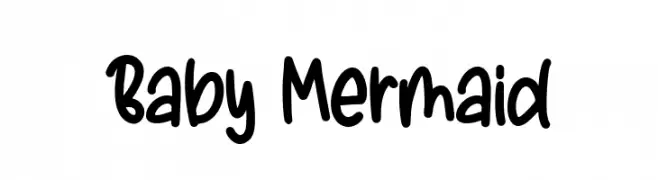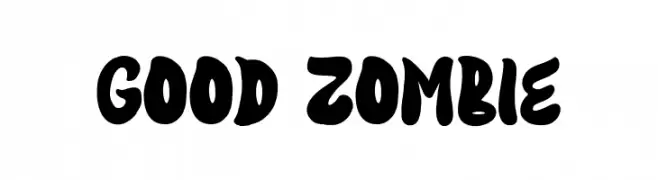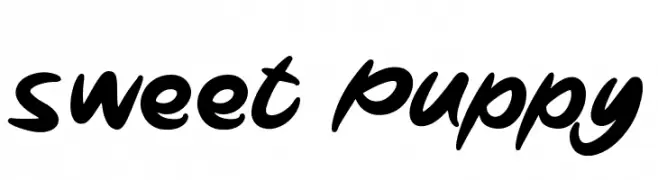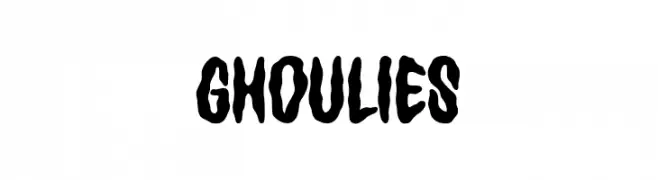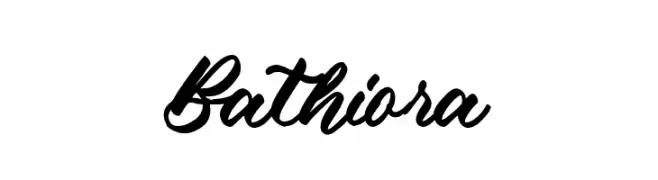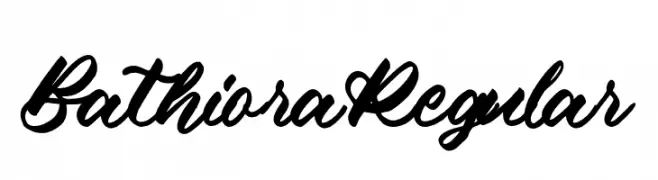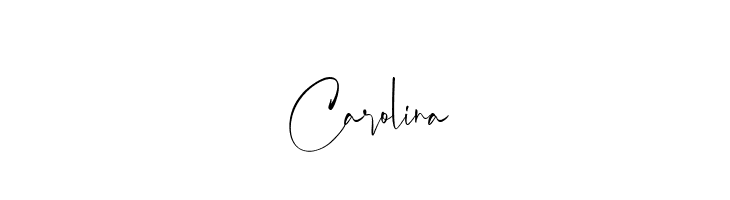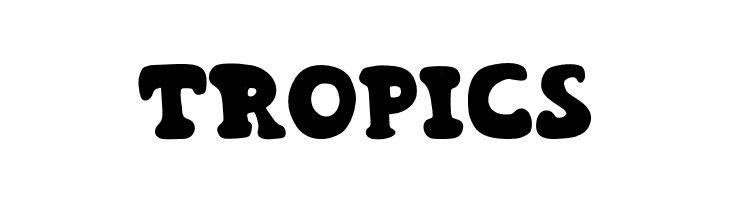
A playful and elegant script font with a handwritten style.
A playful, handwritten font with bold, rounded characters and a whimsical style.
A playful, bold font with thick, rounded strokes and a cartoonish style.
A bold, playful handwritten font with smooth curves and a lively style.
A modern, handwritten font with a playful and artistic flair.
A flowing, cursive script font with elegant, interconnected characters.
A spooky, dripping font with a hand-drawn, horror-inspired style.
A bold, flowing script font with elegant, cursive strokes.
A bold, expressive script font with fluid, interconnected strokes.
A bold, playful font with rounded, organic shapes and a whimsical style.